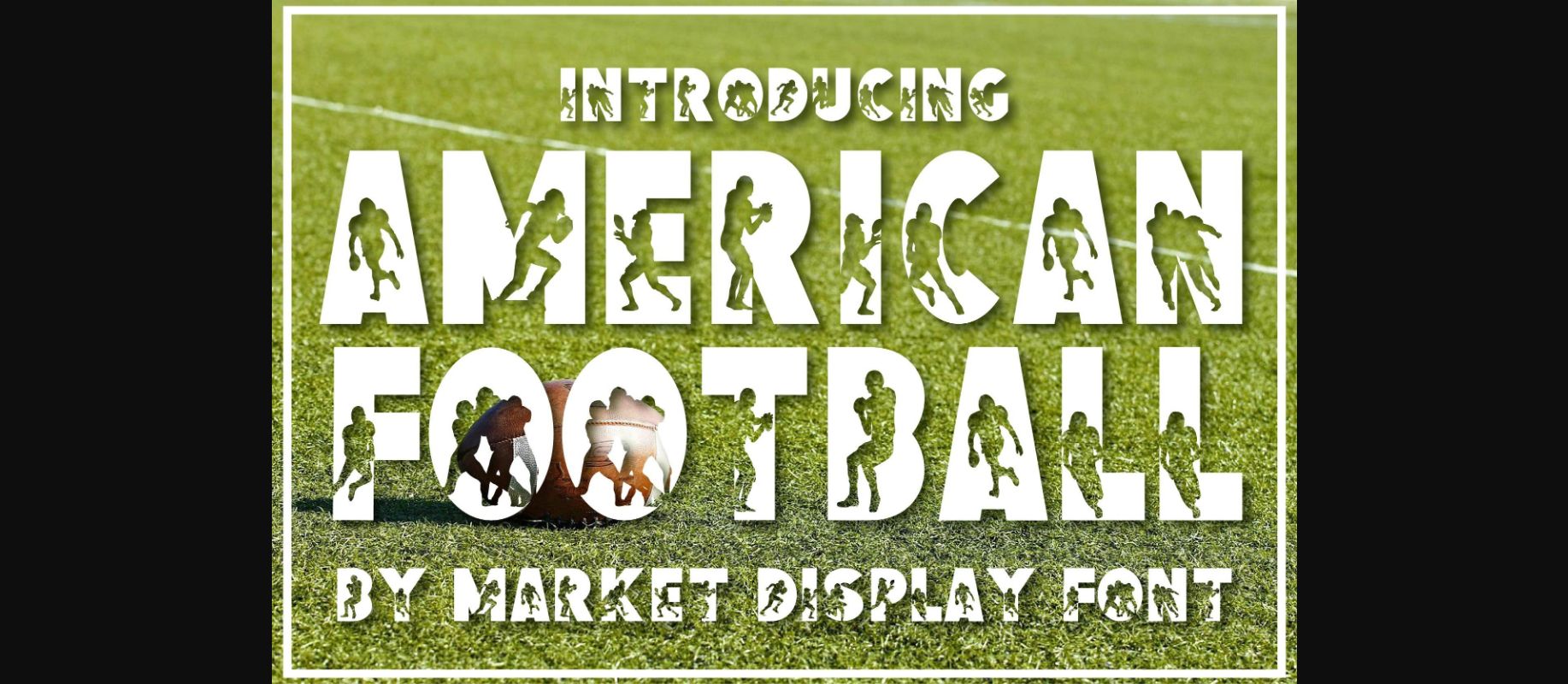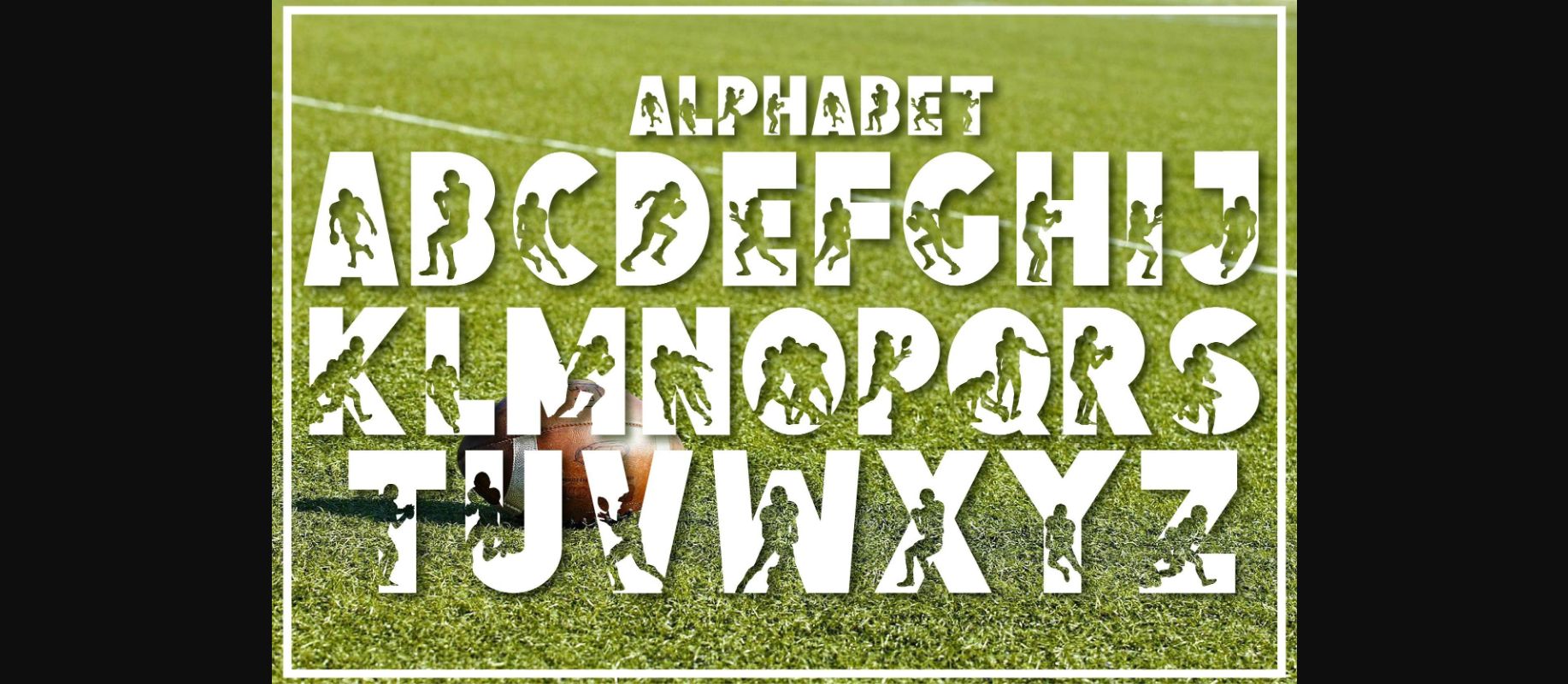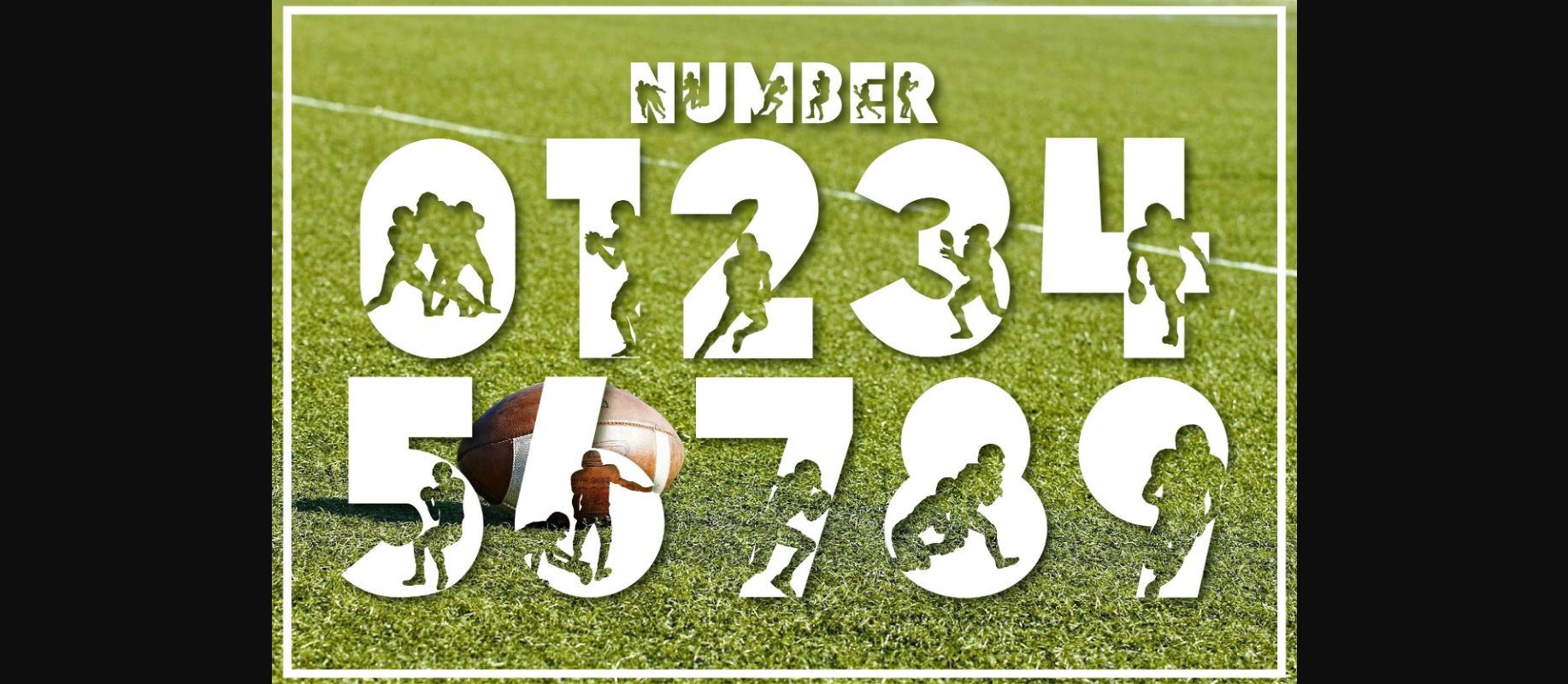
HomeDecorative FontsAmerican Football Font Decorative Fonts American Football Font FacebookXPinterestWhatsApp 1 of 5 ... American Football Font Poster 2... American Football Font Poster 3... American Football Font Poster 4... American Football Font Poster 5... About American Football Font American Football is a bold and authentic decorative font. Add this font to your creative ideas, and notice how it will make them stand out! DOWNLOAD NOW People also explored Oprah Show Font Syafiqa Font Gatigal Font Amalia Font Khalista Font Marchellia Font Go Doodling Font Verona Font Pinkloves Font 303 0 TagsAmerican Football Font Previous articleFall Leaves FontNext articlePaisley Font LEAVE A REPLY Cancel reply Comment: Please enter your comment! Name:* Please enter your name here Email:* You have entered an incorrect email address! Please enter your email address here Website: Save my name, email, and website in this browser for the next time I comment. Personal Use Free Salmoni Personal Use Free Read more about this font My Shine Personal Use Free Read more about this font Vanity Personal Use Free Read more about this font Engine Personal Use Free Read more about this font BLOG Transform Your Website: Elevate Your Typography with 7 Best Web Font Generators Are you ready to transform your website's typography from ordinary to extraordinary? Great! Today, we're diving into the world of web font generators, which... Free Fonts Risk: Why Free Fonts Can Be Dangerous for Designers Elegant Wedding Invitation Fonts – Handwritten & Script Fonts To increase your work productivity, choose the most readable fonts.